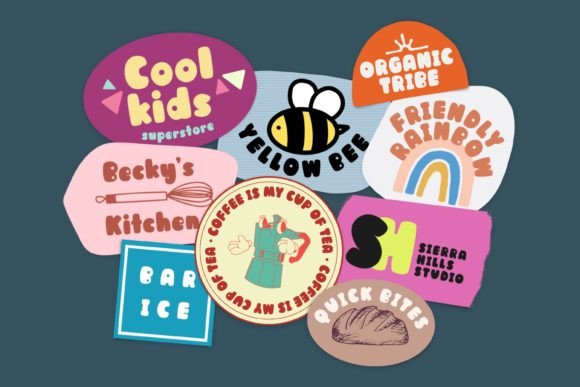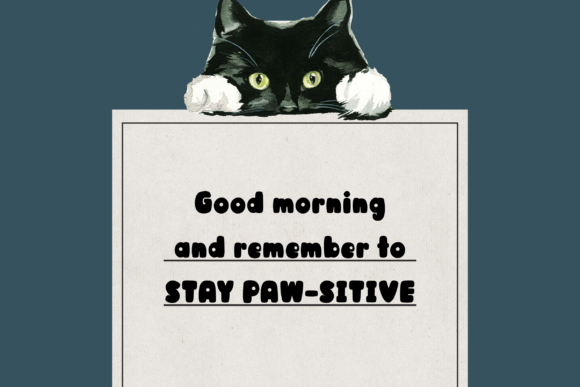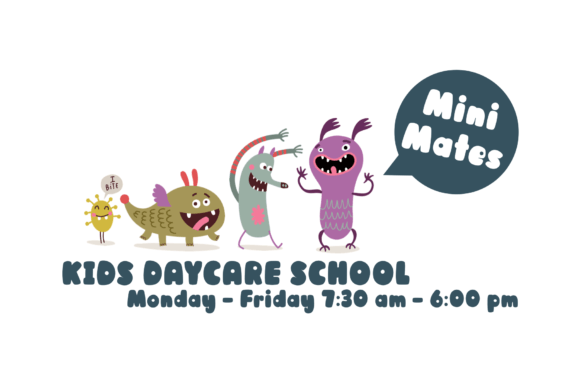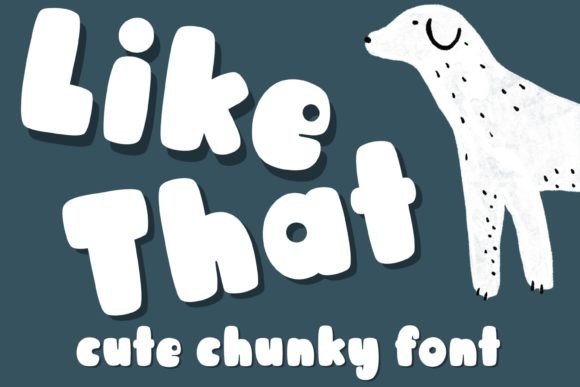
Introduction to Like That Font
Like That is a chunky cute hand-drawn display font.
You can use this font in various projects – blog posts, logos, branding, digital planners, invitations, greeting cards, planners, photo albums, decorations, and much more .
Key Features of Like That Font
Why Choose Like That Font?
Like That Font offers exceptional quality and versatility, making it a valuable addition to your design toolkit. Whether you’re creating for personal projects or commercial use, Like That Font delivers professional results.